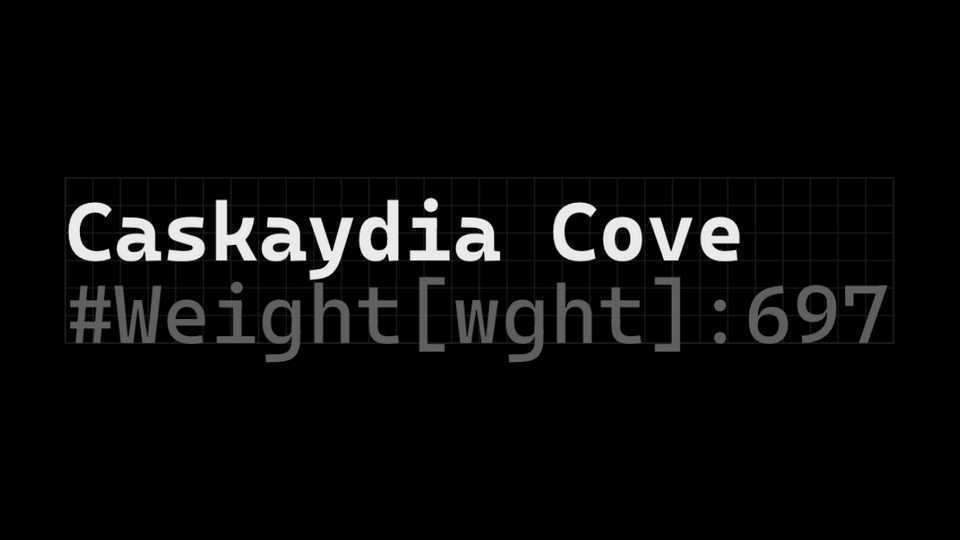
Download Caskaydia Cove typeface, a monospaced font family in 6 weights, including variable font. Caskaydia Cove is a fork of the Cascadia Code typeface with the RFN removed, plus small adjustments to conform to the Google Fonts spec.